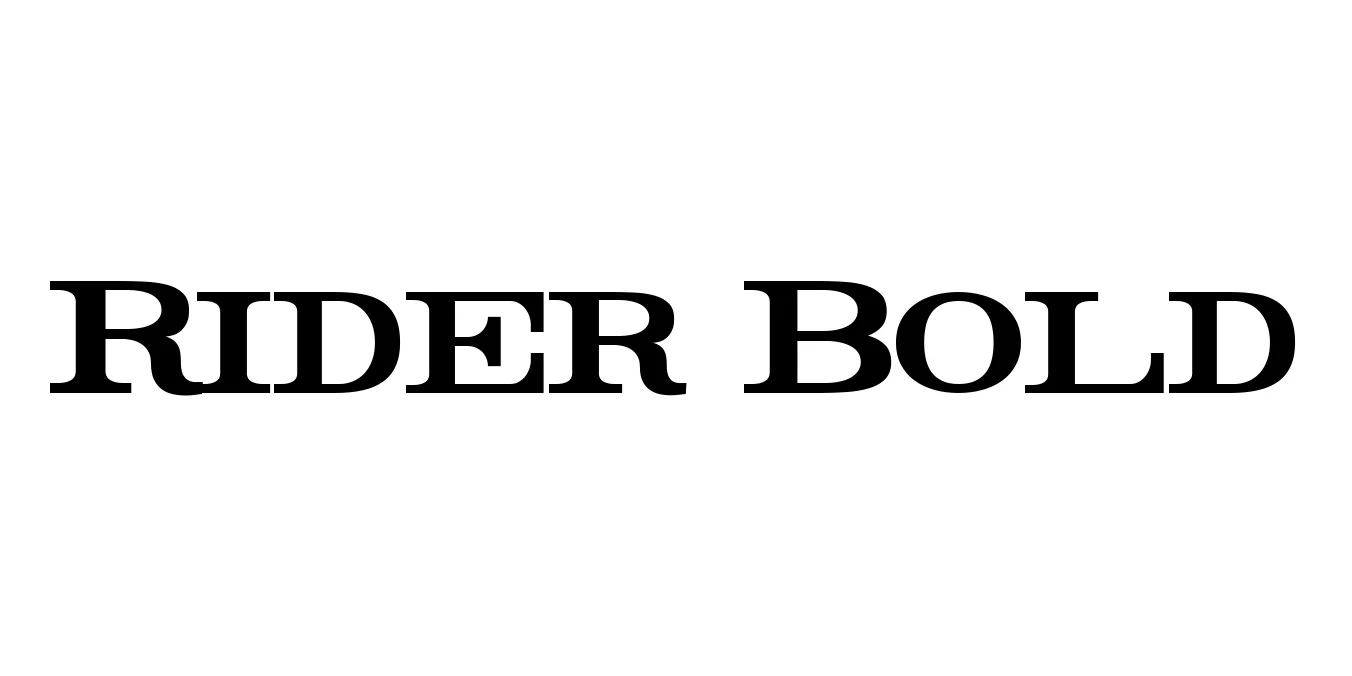
Rider Bold
Designed by Dmitry Rastvortsev
Rider Bold is a powerful and commanding slab-serif typeface that bridges the gap between industrial strength and modern geometric precision. Designed as part of a larger versatile family, the Bold weight specifically emphasizes heavy, uniform strokes and solid, blocky serifs. It was crafted to provide maximum impact in display settings, drawing inspiration from early 20th-century mechanical letterforms while maintaining a clean, contemporary edge suitable for today's high-resolution screens and high-quality print production.
The character of Rider Bold is defined by its architectural stability and high readability at large scales. Its unique blend of ruggedness and sophistication has made it a popular choice for designers looking to convey reliability and authority. Whether used in a minimalist layout or a complex editorial design, this font provides a rhythmic consistency that anchors the visual hierarchy of any project, making it a staple for those who require a typeface with a strong physical presence.
Rider Bold Best Uses
Perfect for creating strong, authoritative logos and visual identities for construction, tech, or lifestyle brands.
Excellent for high-impact magazine headlines and cover titles that need to stand out on a rack.
Ideal for product labels that require a bold, artisan, or rugged aesthetic to communicate quality and durability.